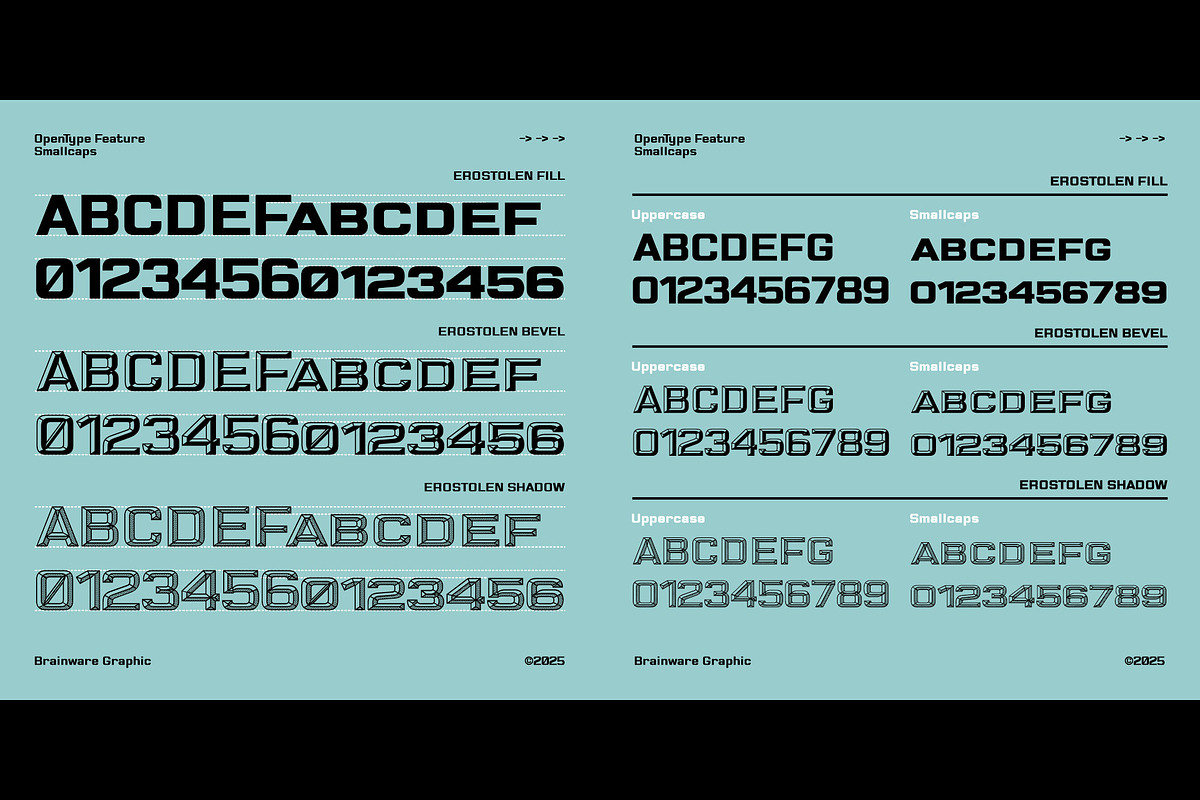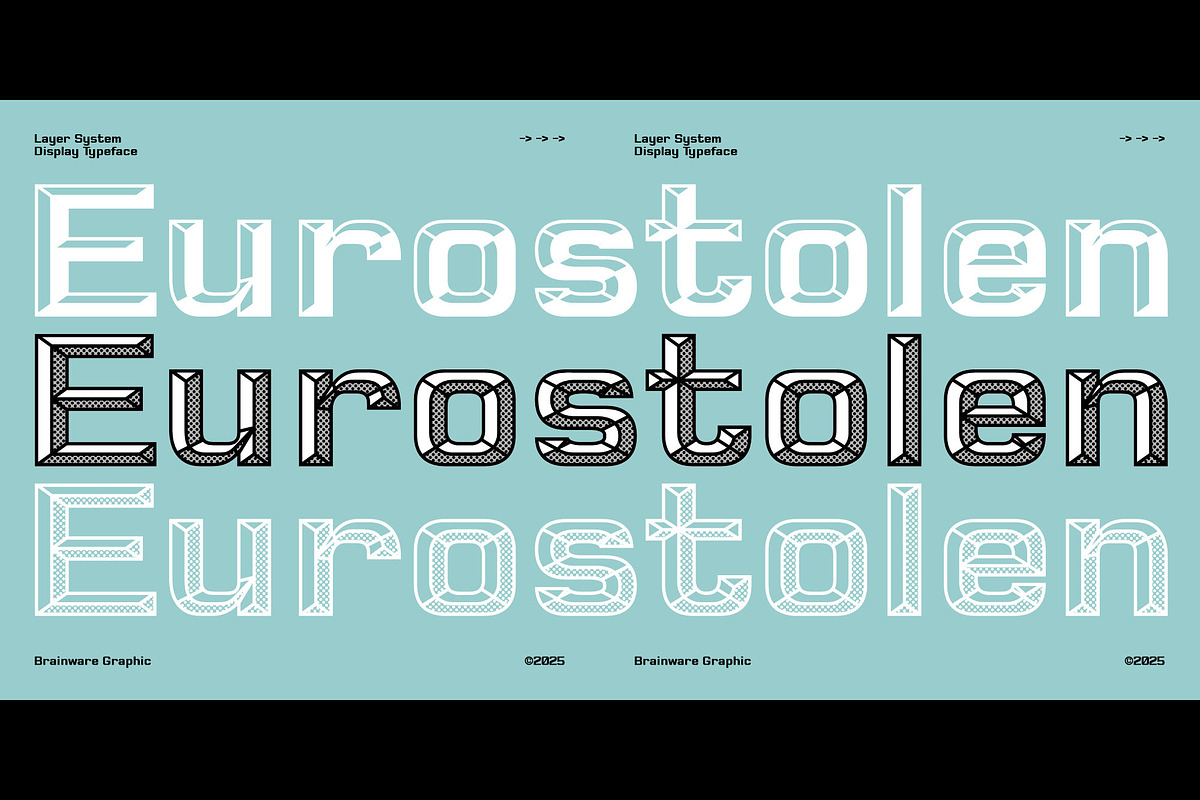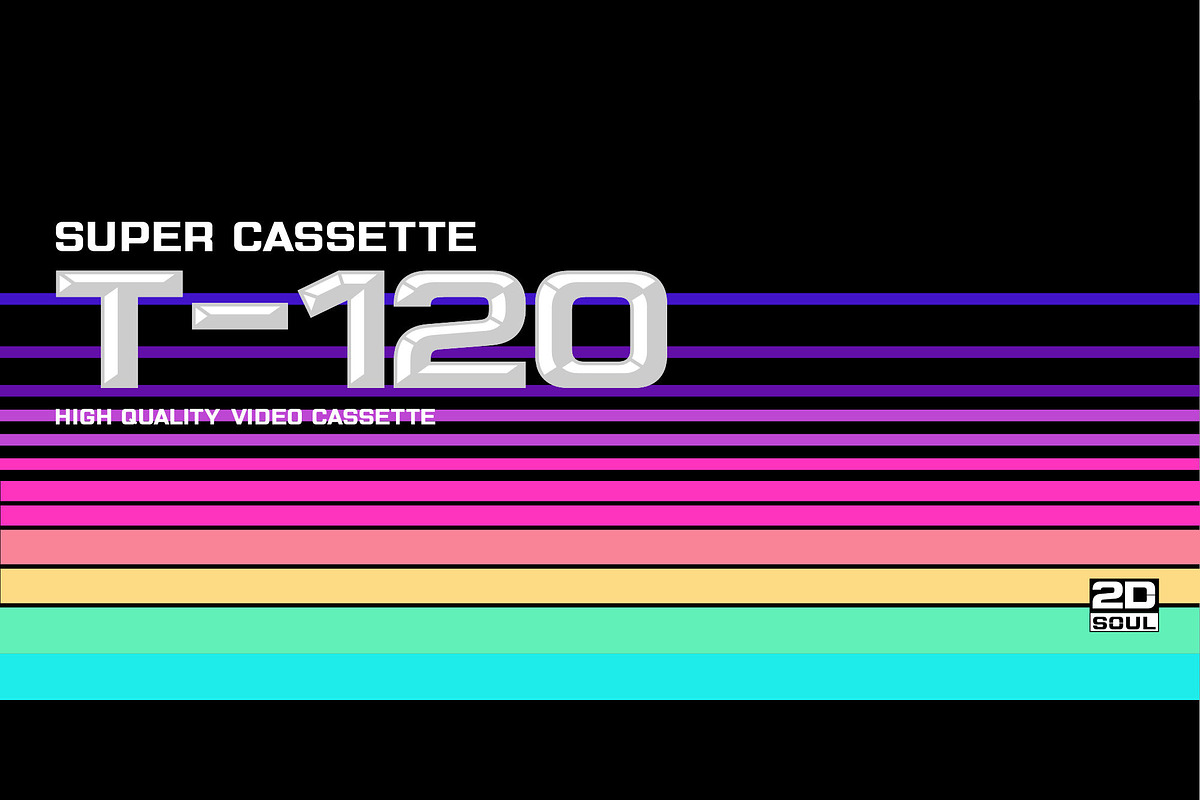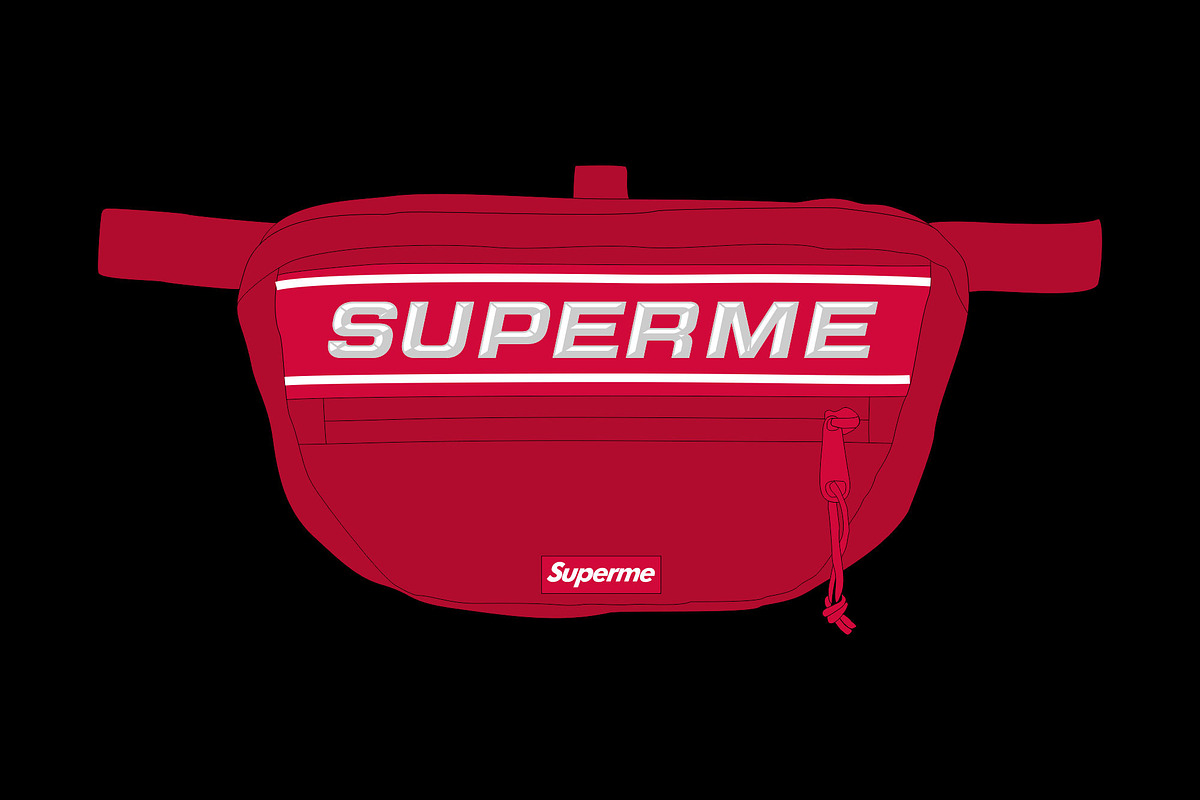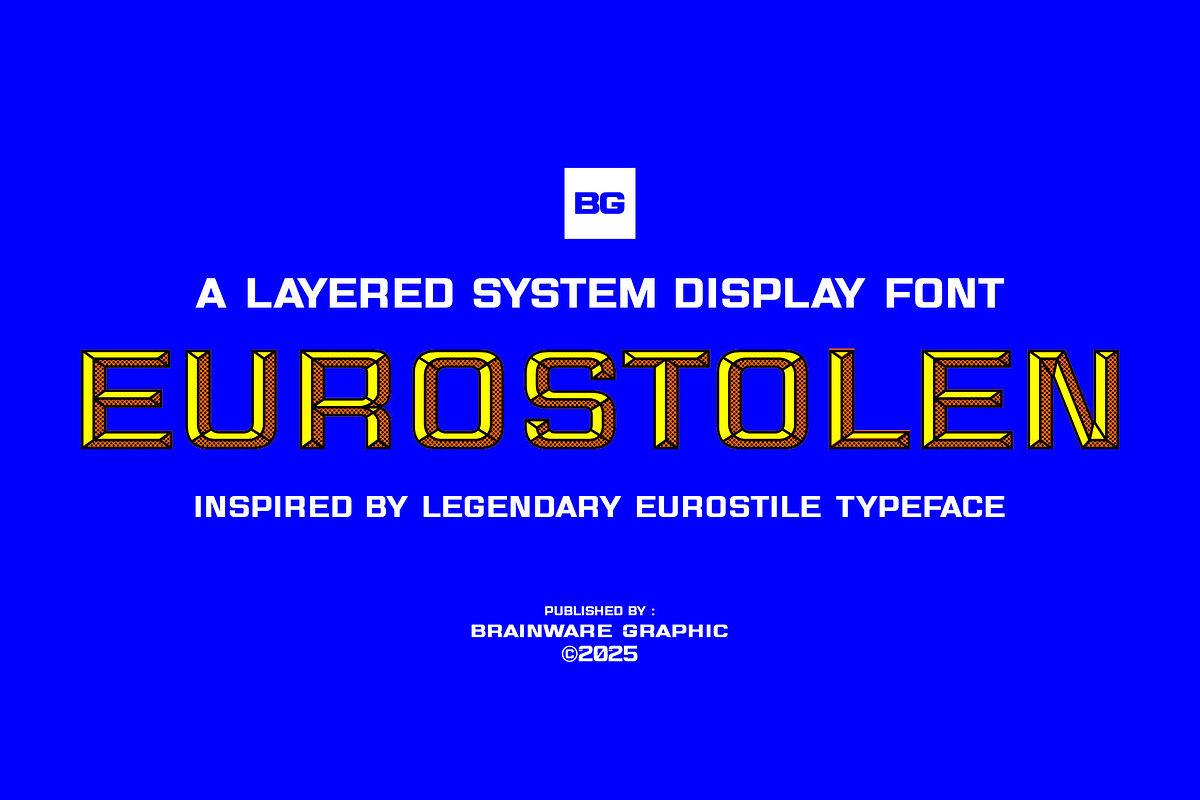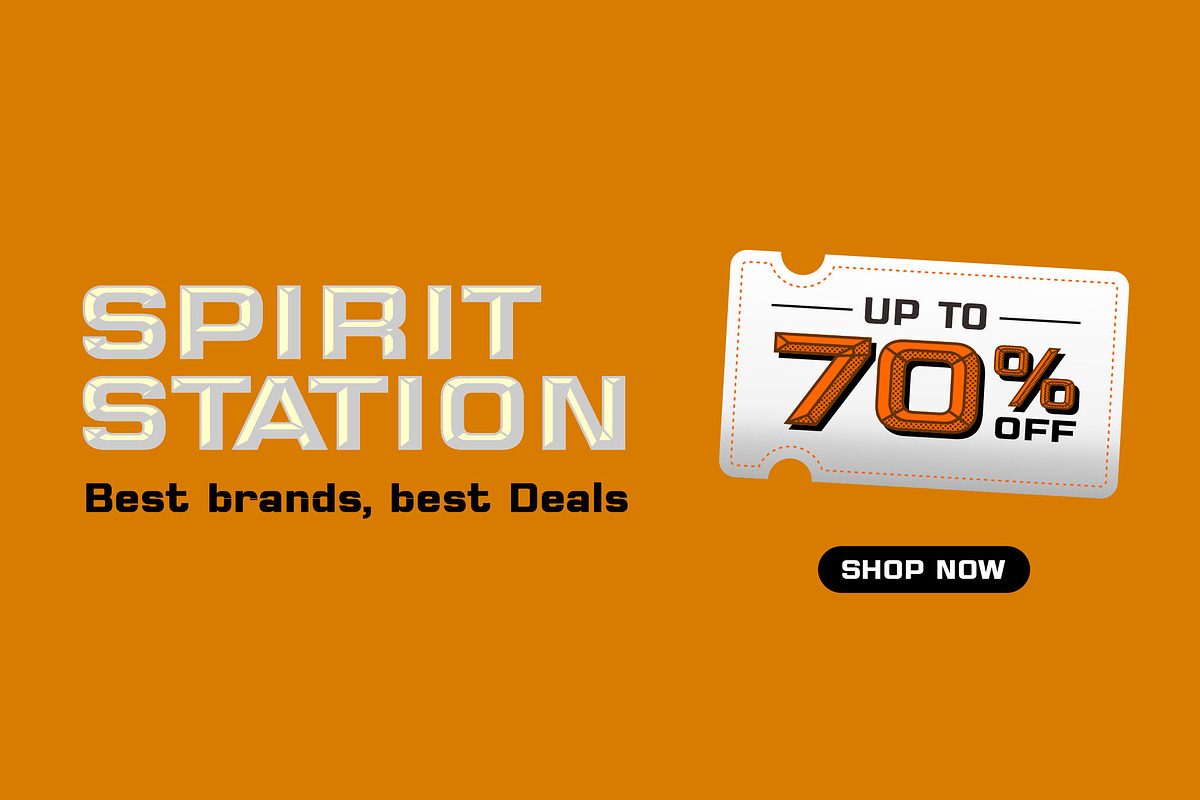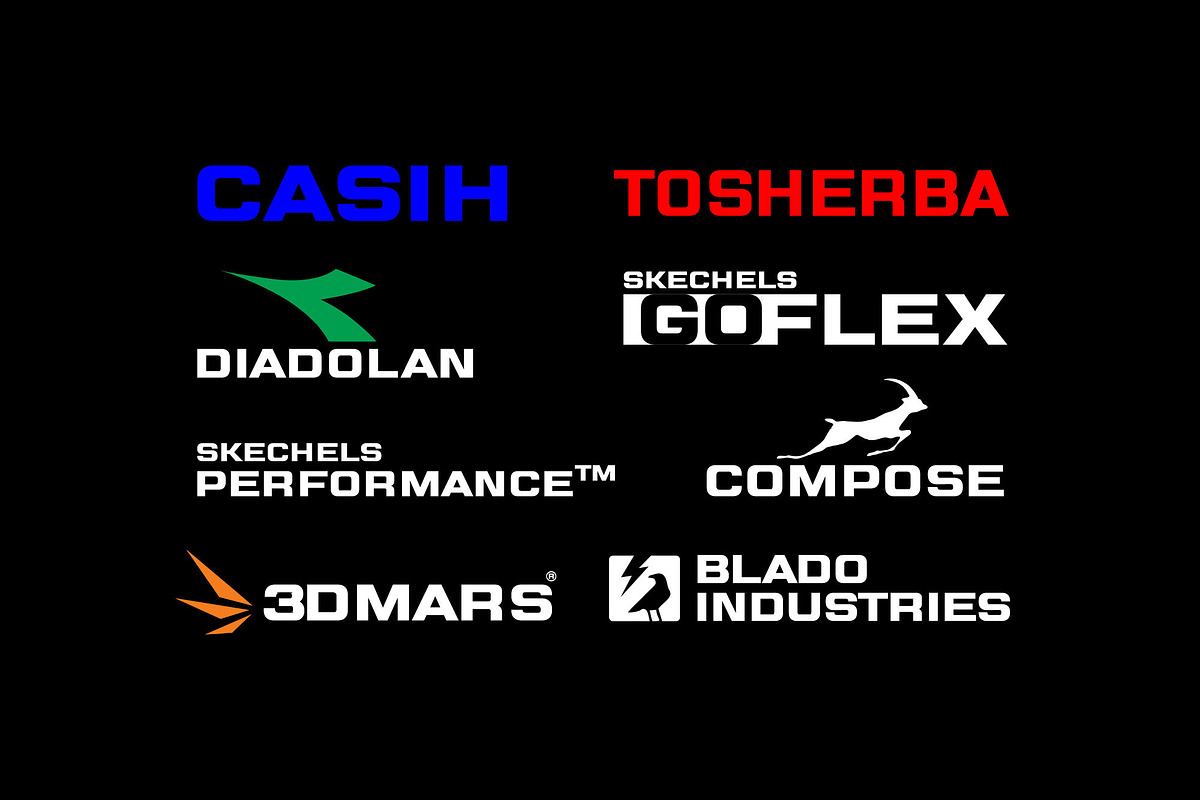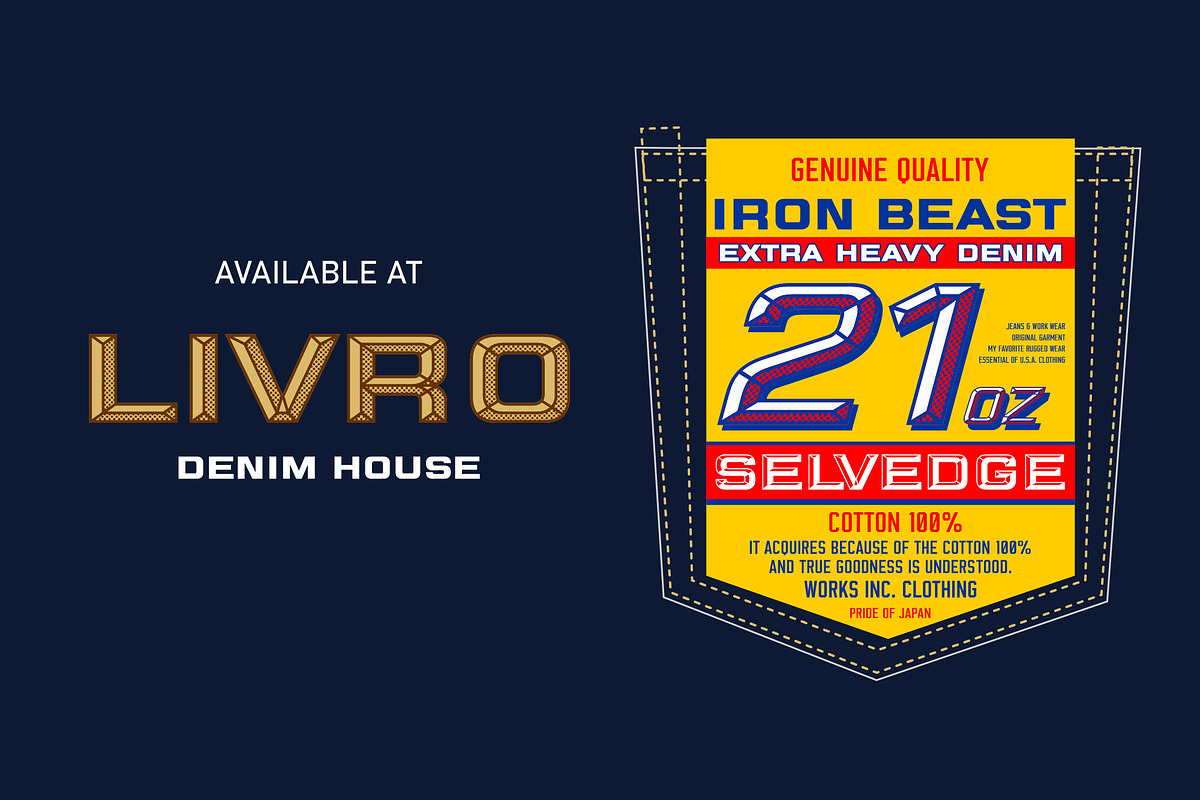
Eurostolen - A layered font
Eurostolen is a display face that comes in three variations. Each can be used effectively on their own or layered for a uniquely effect. Originally inspired by the legendary Eurostile typeface.